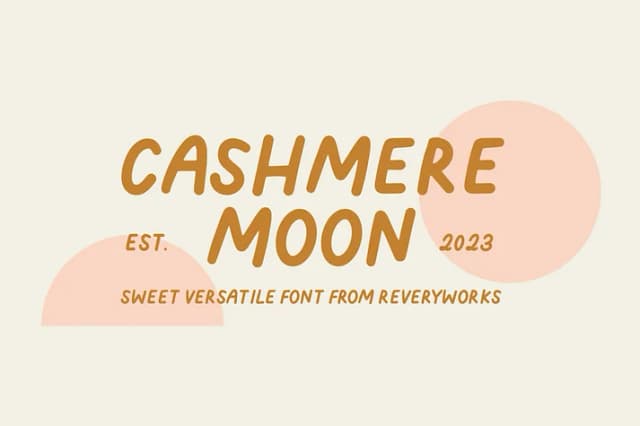
Subtle edge irregularities give Font New, designed by ReveryWorks, the unmistakable quality of handwritten letterforms. Rather than the polished uniformity typical of digital typefaces, this script captures that genuine, slightly imperfect character that makes actual handwriting feel personal, immediate, and authentic on the page.
The font excels for hot foil lettering on luxury packaging, custom wedding invitation suites, handmade Etsy product labels, and boutique skincare branding where that handcrafted aesthetic adds meaningful value to the design. Packed with ligatures that morph as you type, the script creates natural letter flow and visual rhythm once you enable discretionary ligatures in your design software. Toggling them on transforms individual letterforms into a more cohesive, flowing composition that reads like actual penmanship rather than a typeface. The character set includes extensive language support with Western European accented letters and diacritics, so you're prepared for multilingual projects.
Ideal for designers and makers pursuing upscale branding, personalized merchandise, and handcrafted label work, Font New renders consistently across most software platforms and within Canva for quick mockups. Grab it from Creative Fabrica to add it to your library.
- Elegant, Flowing
Font New Font is a script font that shines as a display or heading face. Pair it with a clean sans-serif or serif font for body text β the contrast creates a clear hierarchy while the two styles stay balanced and easy to read.